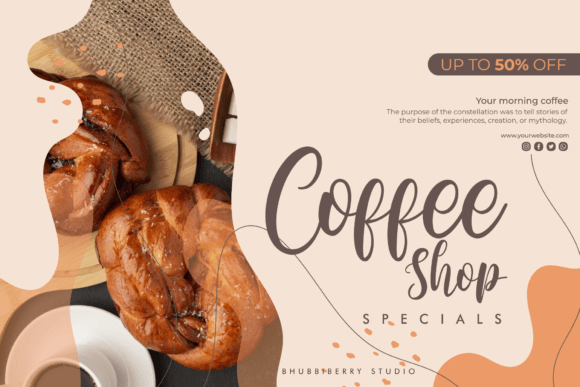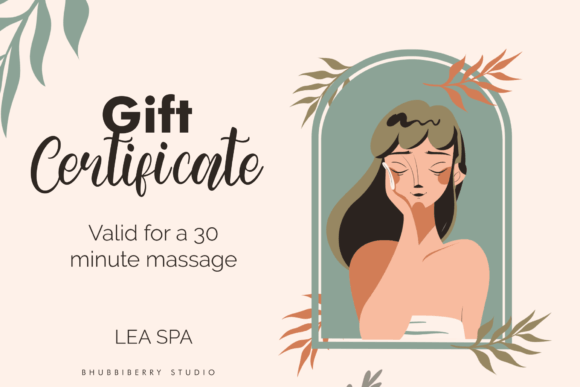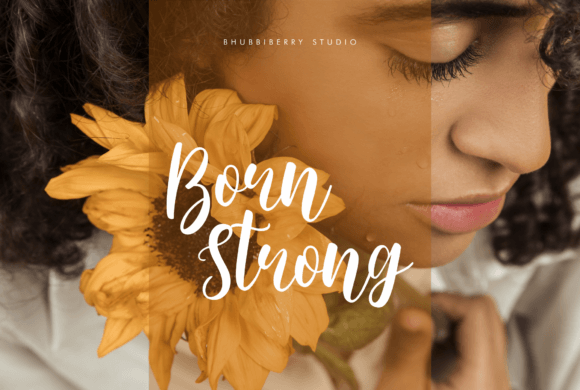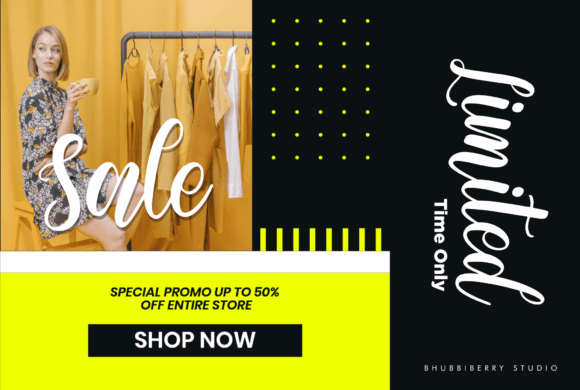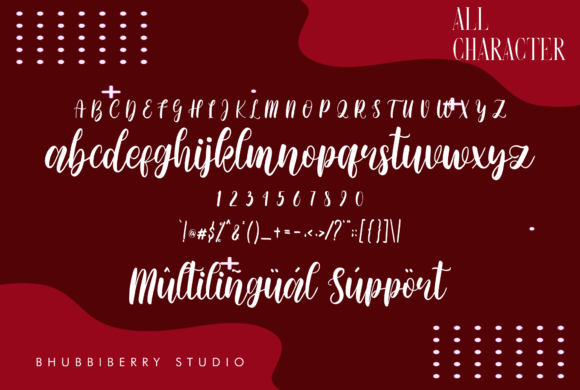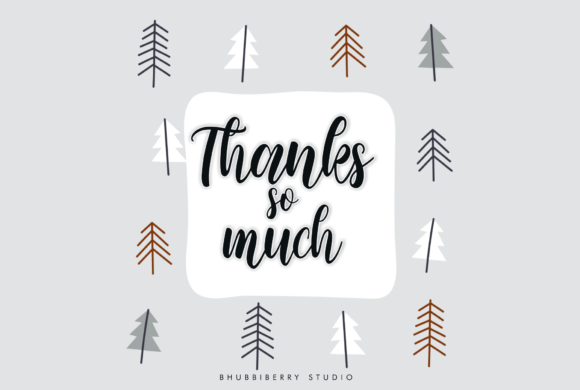
Introduction to Nathalya Font
Have you ever stumbled upon a font that makes your creative project shine with its unique charm? For designers and crafty enthusiasts, discovering the perfect font can be a game-changer. I still remember the moment I fell in love with the Nathalya Font – its whimsical, handwritten style immediately captured my heart and sparked a flurry of ideas for upcoming projects.
As a go-to design resource, Nathalya Font is a must-have for anyone seeking to add a touch of romance and elegance to their work. Its high-quality, handwritten design makes it perfect for Instagram posts, wedding invitations, and other creative projects where a personal touch is essential.
Key Features of Nathalya Font
- High-quality, professional font suitable for creative projects and design resources.
- Unique characteristics include elegant, cursive script and ornate details, perfect for adding a touch of sophistication to any design.
Honest Review: Nathalya Font
I recently had the chance to work with the Nathalya Font, and I must say it’s a fantastic addition to any designer’s toolkit. As a high-quality design resource, it’s perfect for creative projects that require a touch of elegance and sophistication.
One of the standout features of the Nathalya Font is its versatility. It works well for a variety of applications, from headings and titles to body text and even logos. ✨ I particularly appreciate the transparent background option, which makes it easy to customize and integrate into any design.
Here are some of the key benefits I’ve noticed:
- Works well for headings, titles, body text, and even logos
While the Nathalya Font is an excellent choice for many designers, there are a few limitations to be aware of:
- ⚠️ Limited character set, which may not be suitable for projects that require a wide range of characters
- ⚠️ May not be as compatible with certain design software or operating systems
Overall, I’m thoroughly impressed with the Nathalya Font. Its high-quality design, versatility, and transparent background option make it a valuable resource for any designer. If you’re looking for a reliable and effective font for your next creative project, I highly recommend giving the Nathalya Font a try.
Nathalya Font
Tips for Getting the Most Out of Nathalya Font
To get the most out of Nathalya Font, consider the following tips:
- Use the font with a transparent background to create a modern and sleek design.
- Combine Nathalya Font with other design elements, such as images and graphics, to create a unique and engaging design.
The Nathalya Font is ideal for a variety of creative projects, including:
- Brochures
- Website design
Alternatives to Nathalya Font
The Great Vibes Font is a high-quality, elegant script font perfect for creative projects. It features a transparent background and comes with a free download option. This font is ideal for use in wedding invitations, greeting cards, and other formal designs. It compares to Nathalya Font in terms of its elegant and sophisticated feel, but Great Vibes has a more vintage and classic look.
The Alex Brush Font is a beautiful, handwritten font that is ideal for design projects that require a personal touch. It features a high-quality design and comes with a free download option. This font is perfect for use in creative projects such as watercolor paintings, illustrations, and hand-drawn designs. It compares to Nathalya Font in terms of its elegant and sophisticated feel, but Alex Brush has a more unique and handwritten look.